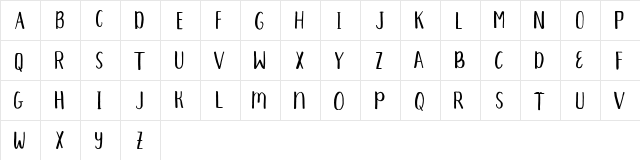
Aprils Regular Font Preview
Aprils Regular
Aprils Regular Font Details
| Foundry | Jamaludin |
| Designer | Jamaludin |
Design Context for Aprils Typeface
Aprils is a composed and adaptable typeface that performs quietly and consistently across a wide range of design contexts.